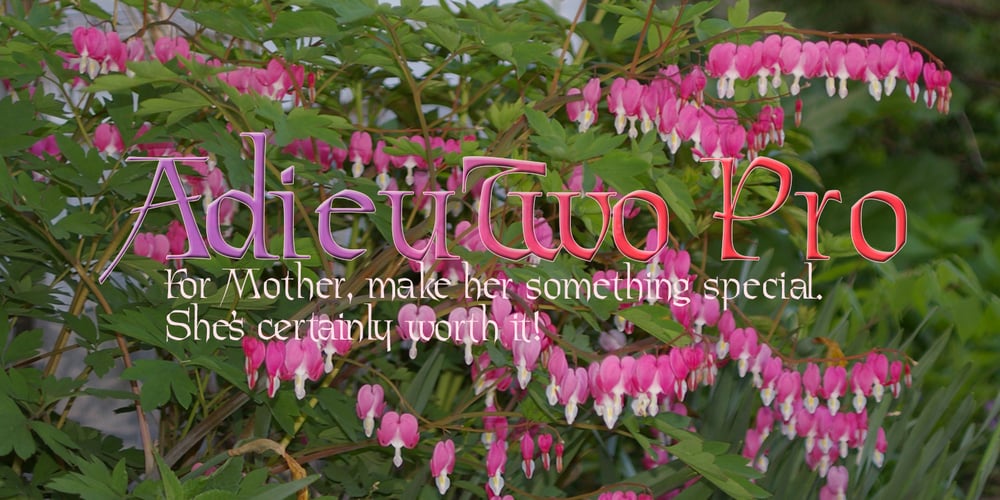
Adieu
Adieu font
Adieu Font Family was designed by David Bergsland and published by Hackberry Font Foundry. Adieu contains 1 styles and family package options. Adieu is an old-fashioned display font traced and modified from a group of Victorian fonts. It is very stylized, but it is very attractive to many of my clients.